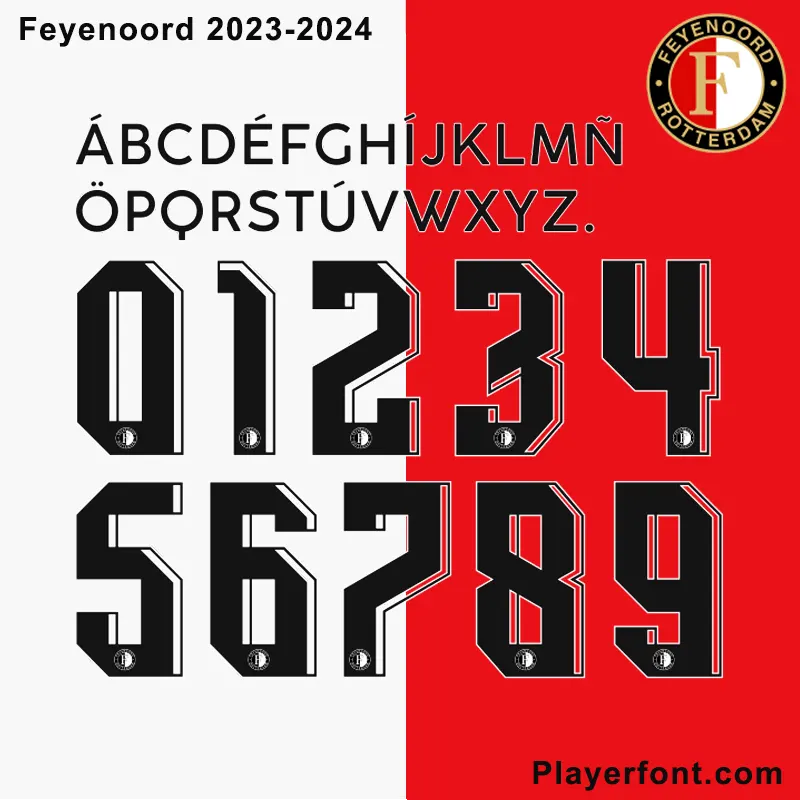
Feyenoord 2023-2024 Font Download
Download the premium Feyenoord 2023-2024 Font Kit today! This complete typography pack includes high-quality TTF, OTF, AI, CDR, and PDF vector files, fully compatible with design software and garment printing. Features the complete alphabet string with special accent characters and custom geometric jersey numbers embedded with the iconic club crest. Perfect for kit designers, sports customizers, and Feyenoord fans.